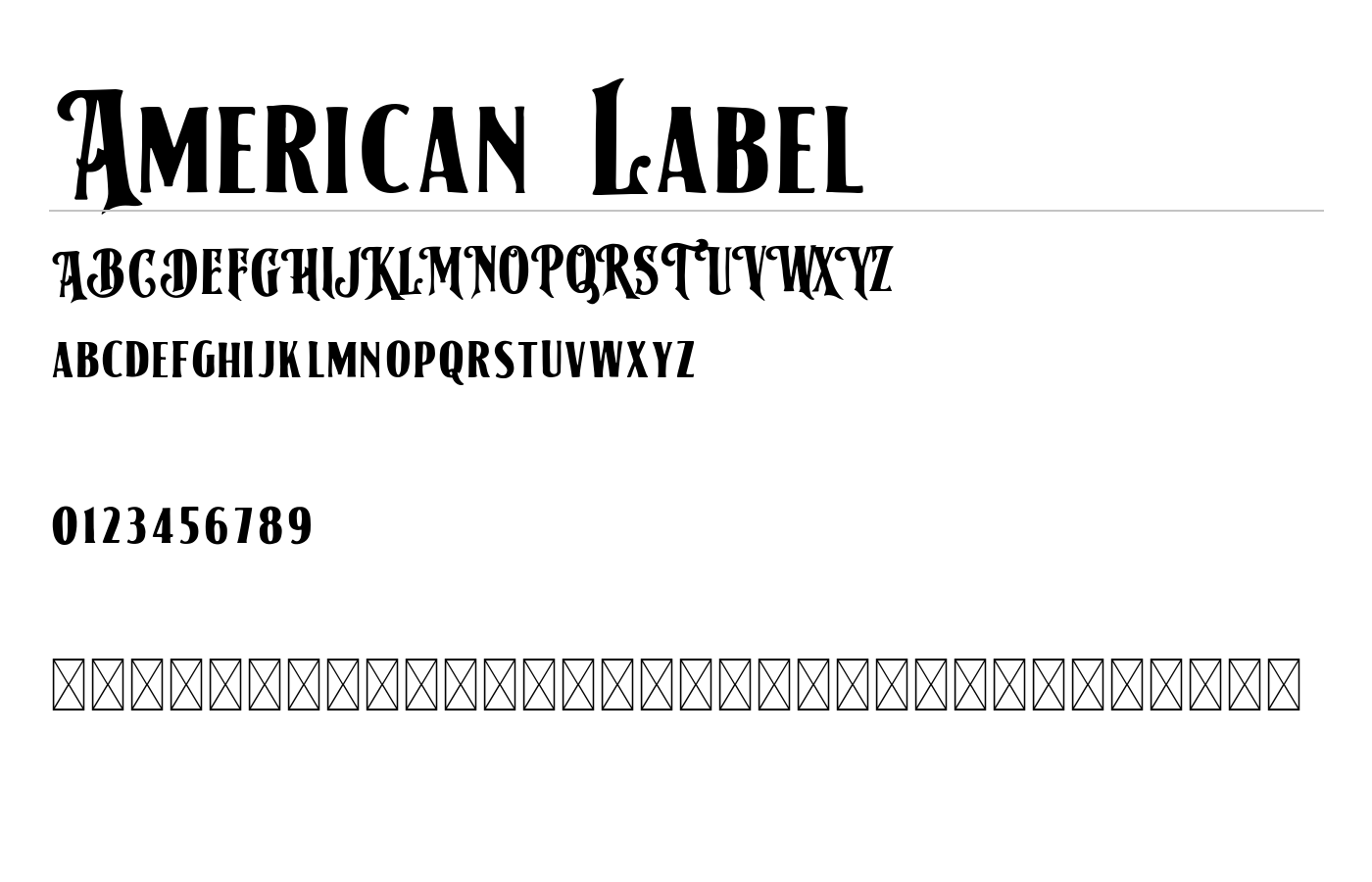
American Label Font is a bold, condensed serif typeface with a vintage Western feel, characterized by its sharp, bracketed serifs and dramatic, irregular stroke terminals. It has a strong, ornamental style with high contrast and distinctive uppercase letterforms that evoke classic American signage and label designs. This font is perfect for creating eye-catching headlines, logos, and packaging that need a rustic, nostalgic, or rugged personality.
American Label Font
About American Label Font
| Font family | American Label Font |
| Designer | Holis Majid |